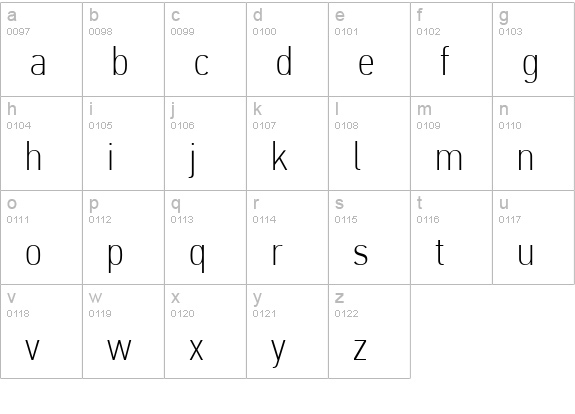
PFDinTextCondPro-Thin is a delicate, low-contrast variant in the PFDinTextCondPro typeface family \xE2\x80\x94 well suited to fashion editorial, minimal branding, and high-contrast display.
PFDinTextCondPro-Thin font is a sleek and modern typeface that exudes sophistication and elegance. With its thin strokes and condensed design, this font is perfect for creating a clean and minimalist look in your projects. Whether you're designing a website, a logo, or a print layout, this font will add a touch of refinement to your work. The best part? PFDinTextCondPro-Thin font is available for free download at FontsMarket.com. You can easily access this high-quality font and elevate your designs without breaking the bank. Don't miss out on the opportunity to enhance your projects with this stylish and versatile typeface. Download PFDinTextCondPro-Thin font today and take your design game to the next level!